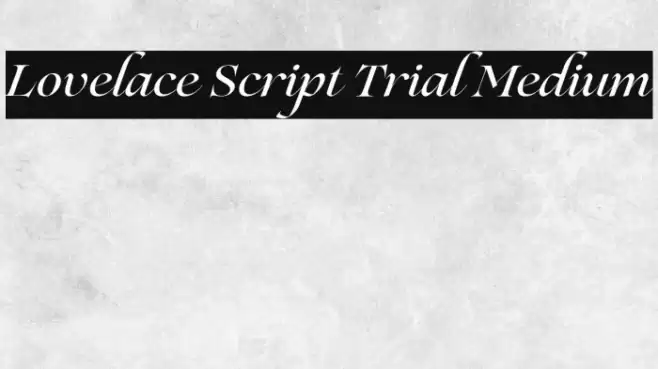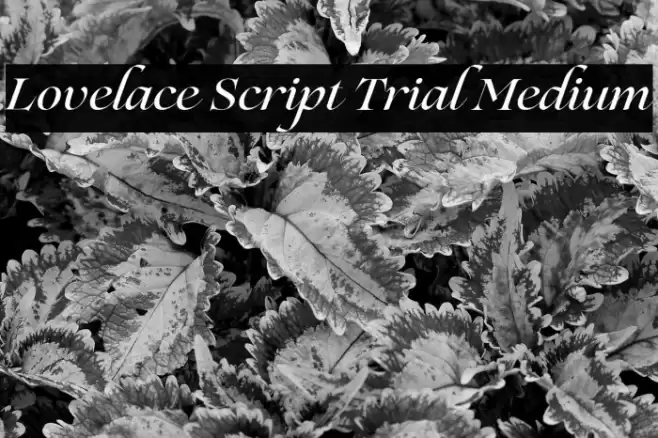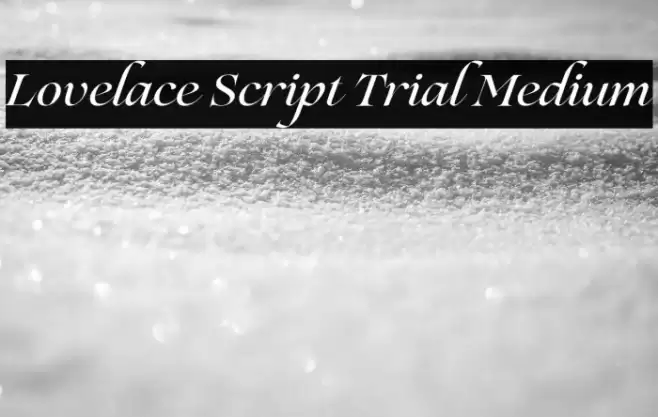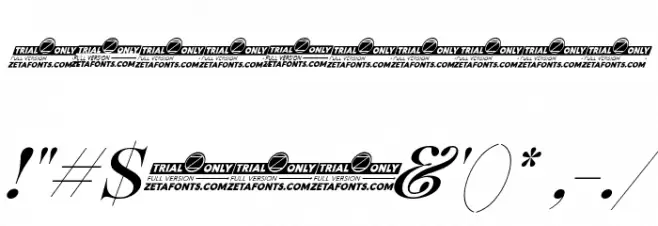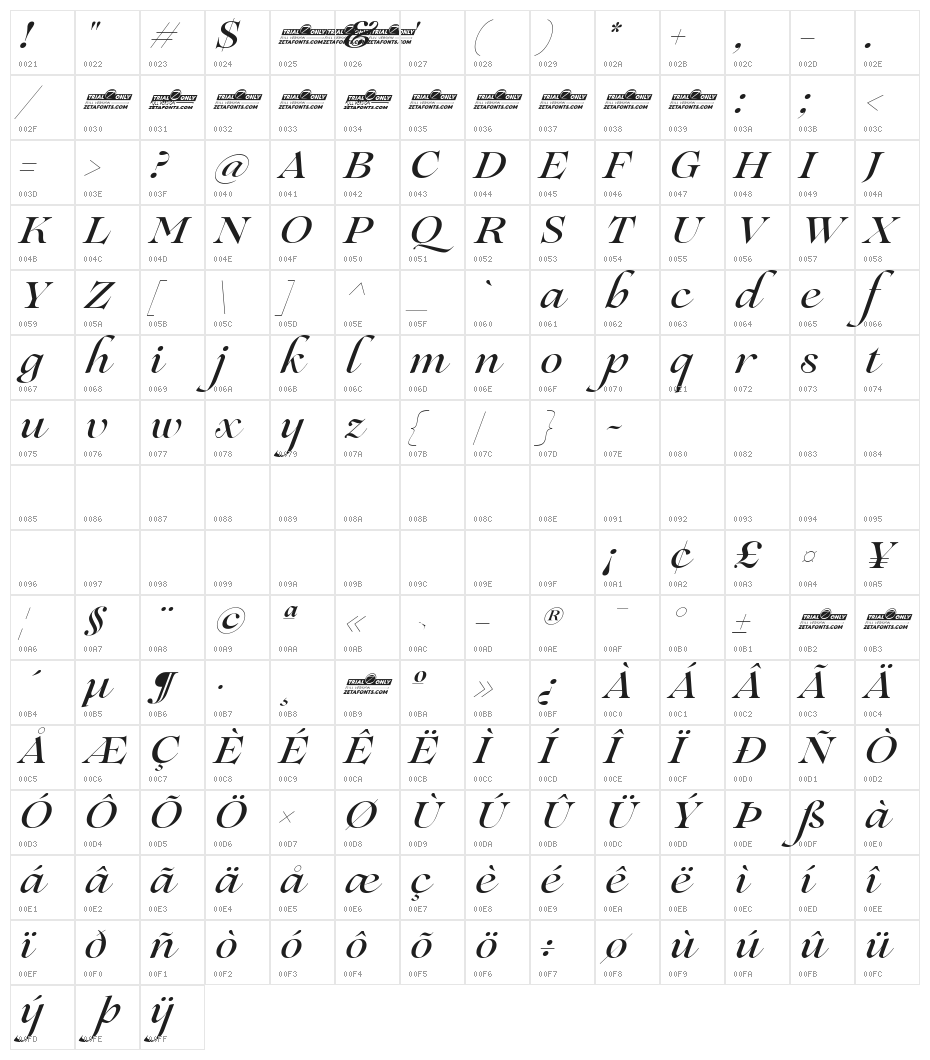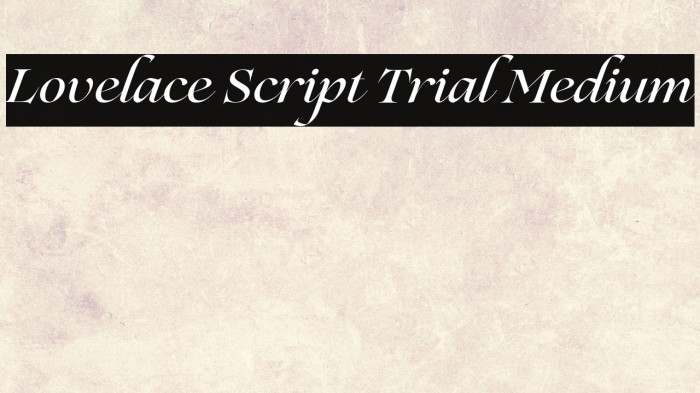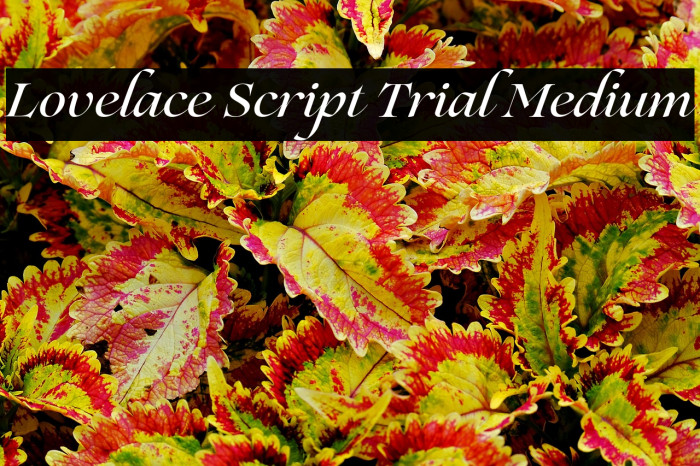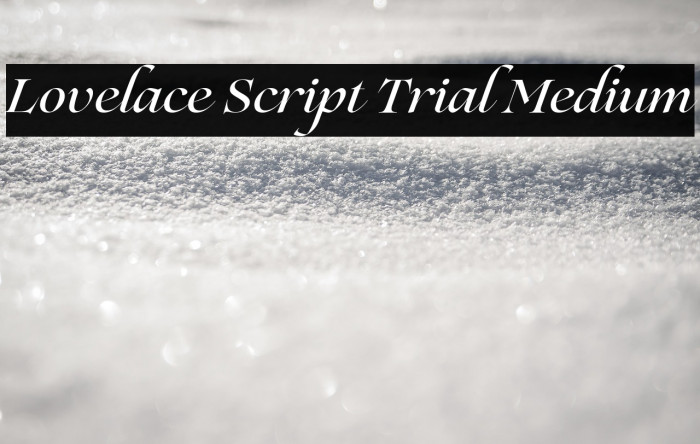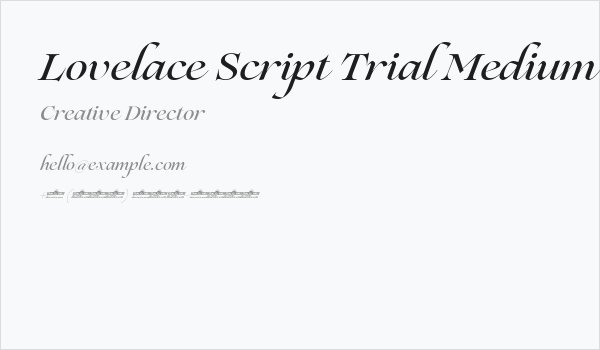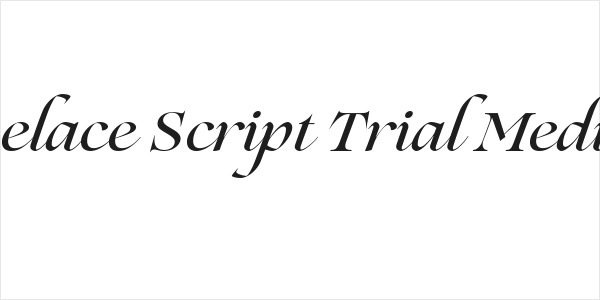
Lovelace Script Trial Medium Font
Lovelace Script Trial Medium Description
This elegant script font features a sophisticated and flowing design, characterized by its smooth, cursive strokes and graceful curves. The uppercase letters exhibit a refined flair with subtle flourishes, while the lowercase letters maintain a consistent and harmonious flow. The numerals and special characters are crafted with the same attention to detail, ensuring a cohesive look across all elements. The font's overall appearance is both classic and modern, making it versatile for various design applications.
An elegant script font with flowing, cursive strokes and graceful curves from Regular fonts.
- Proposed Projects: Ideal for wedding invitations, elegant branding, luxury packaging, and editorial design.
- Overall Style: Classic
- Use Case: Logos, Invitations, Editorial Design